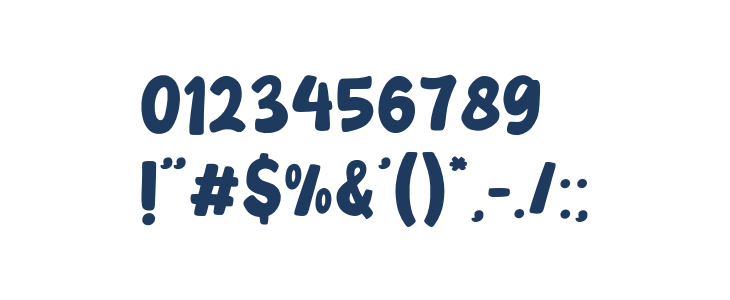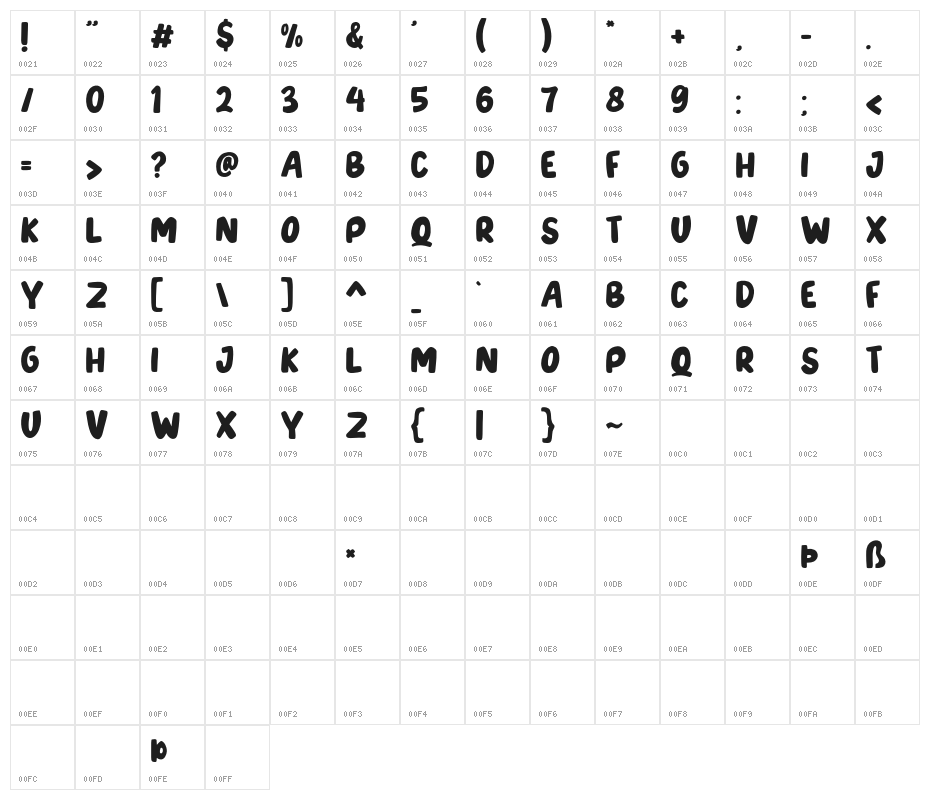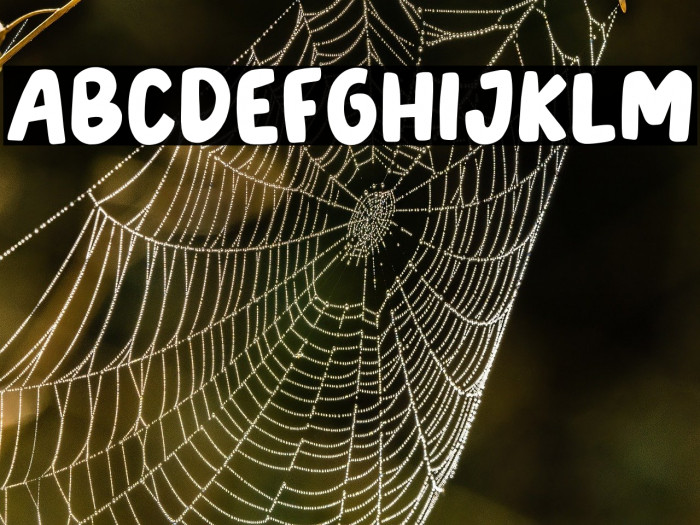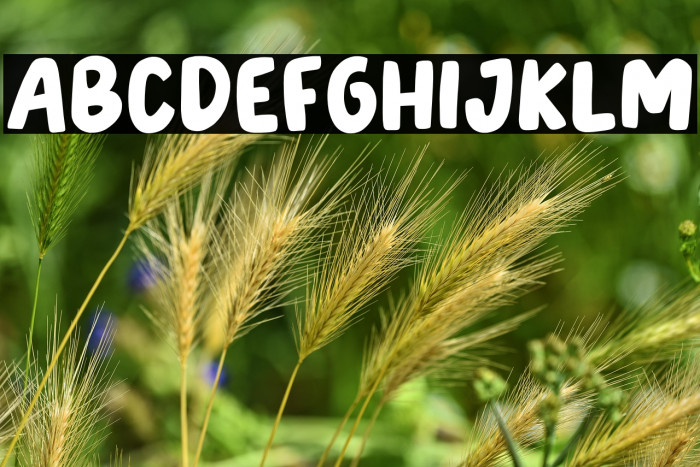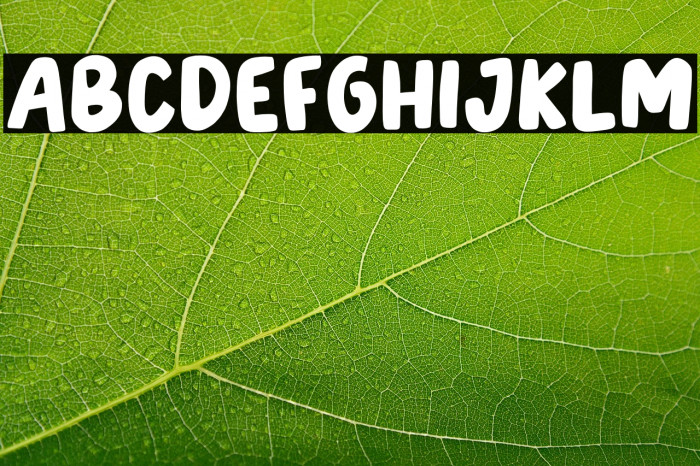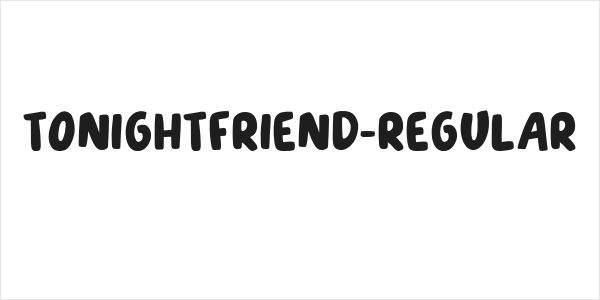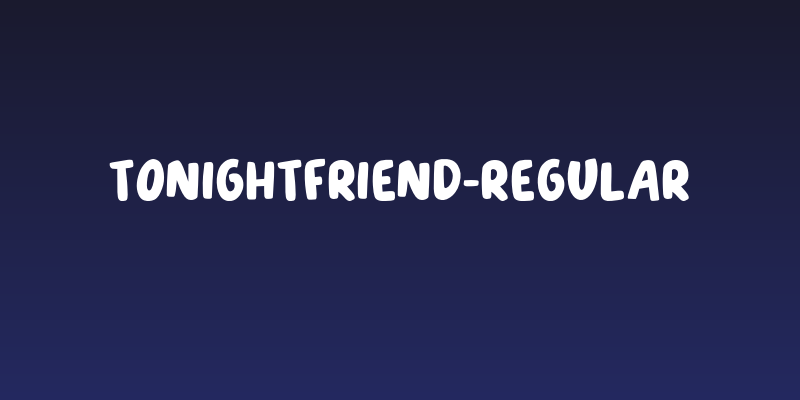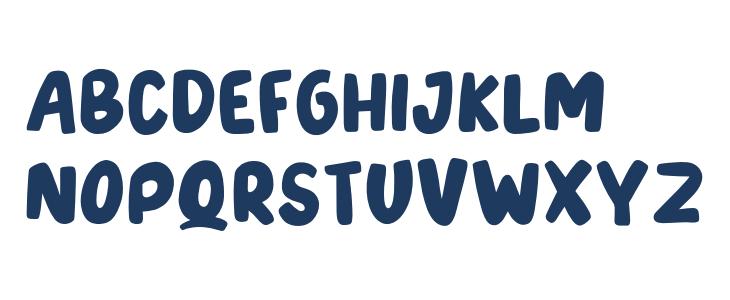
TonightFriend-Regular Font
TonightFriend-Regular Description
This font features a playful and bold style, characterized by its rounded and slightly irregular letterforms. The strokes are thick and consistent, giving it a strong presence. The uppercase and lowercase letters maintain a uniform height, contributing to a cohesive look. The numbers and special characters follow the same design principles, ensuring visual harmony across all elements. Its informal and friendly appearance makes it suitable for projects that require a touch of whimsy and approachability.
| Overall Style | Playful |
| Proposed Projects | Ideal for children's books, playful branding, casual invitations, and social media graphics. |